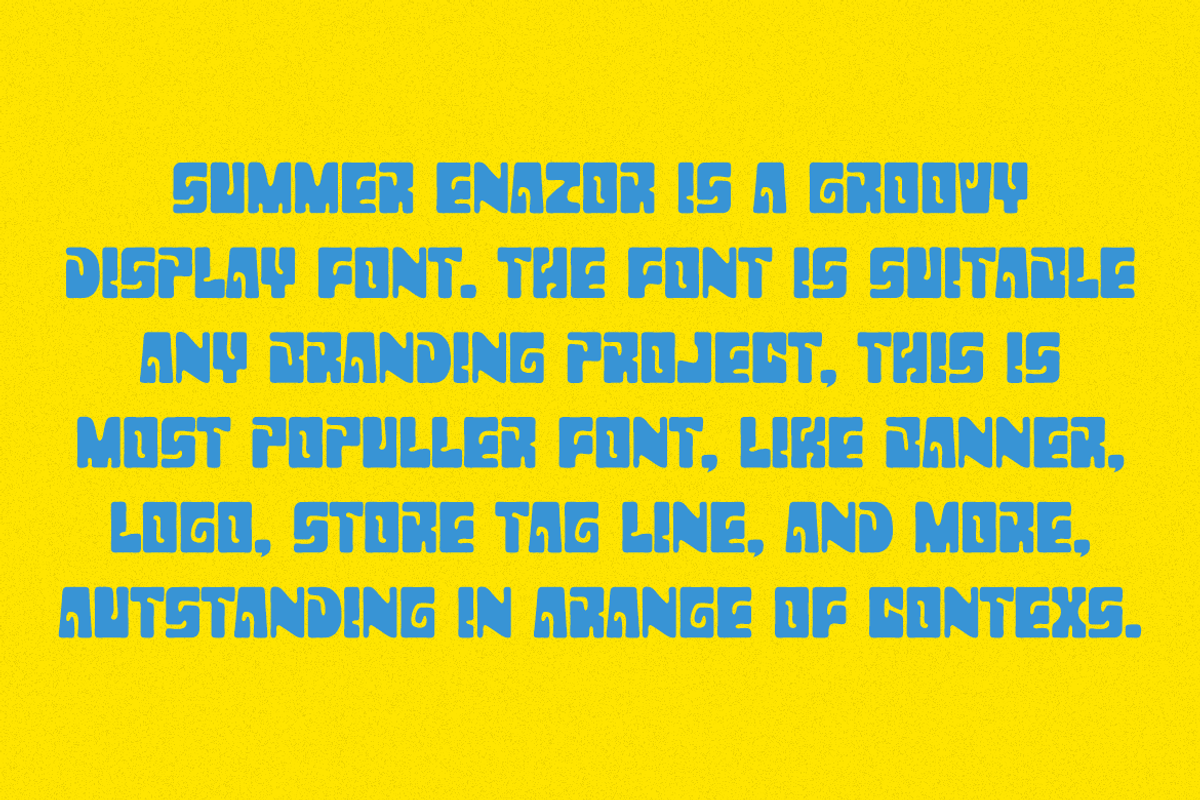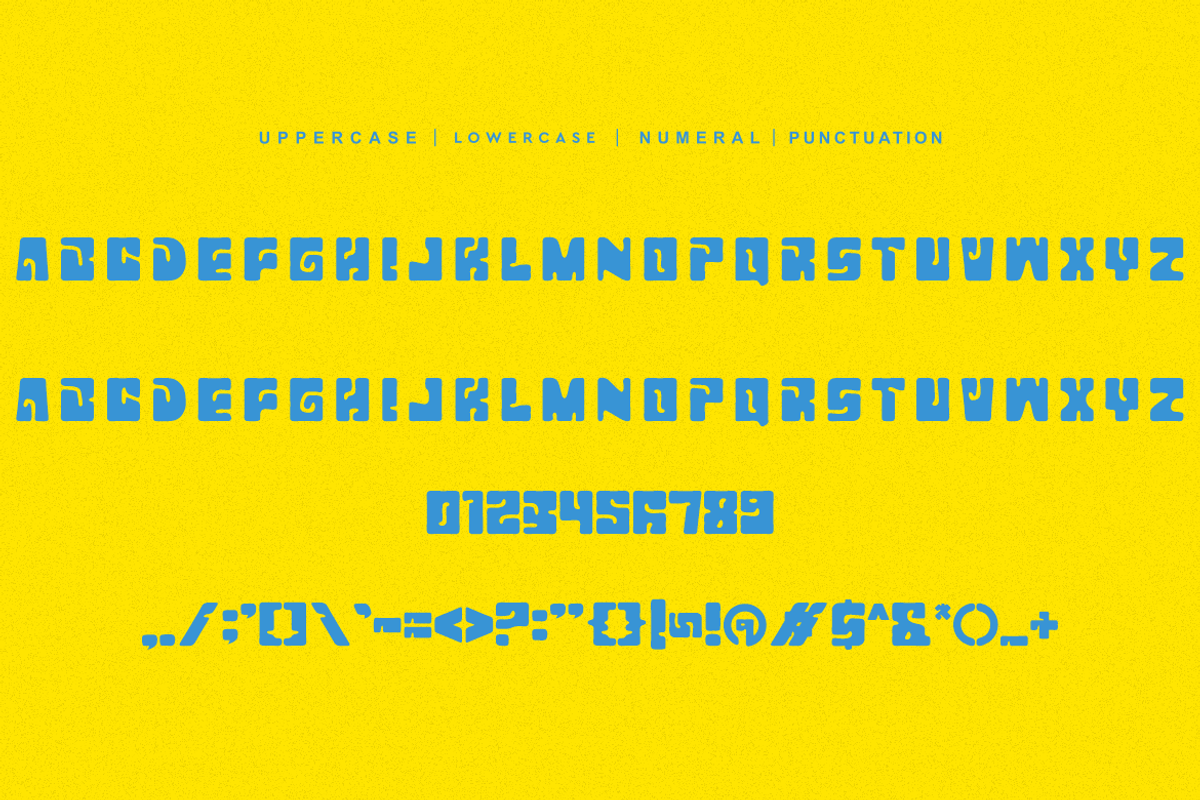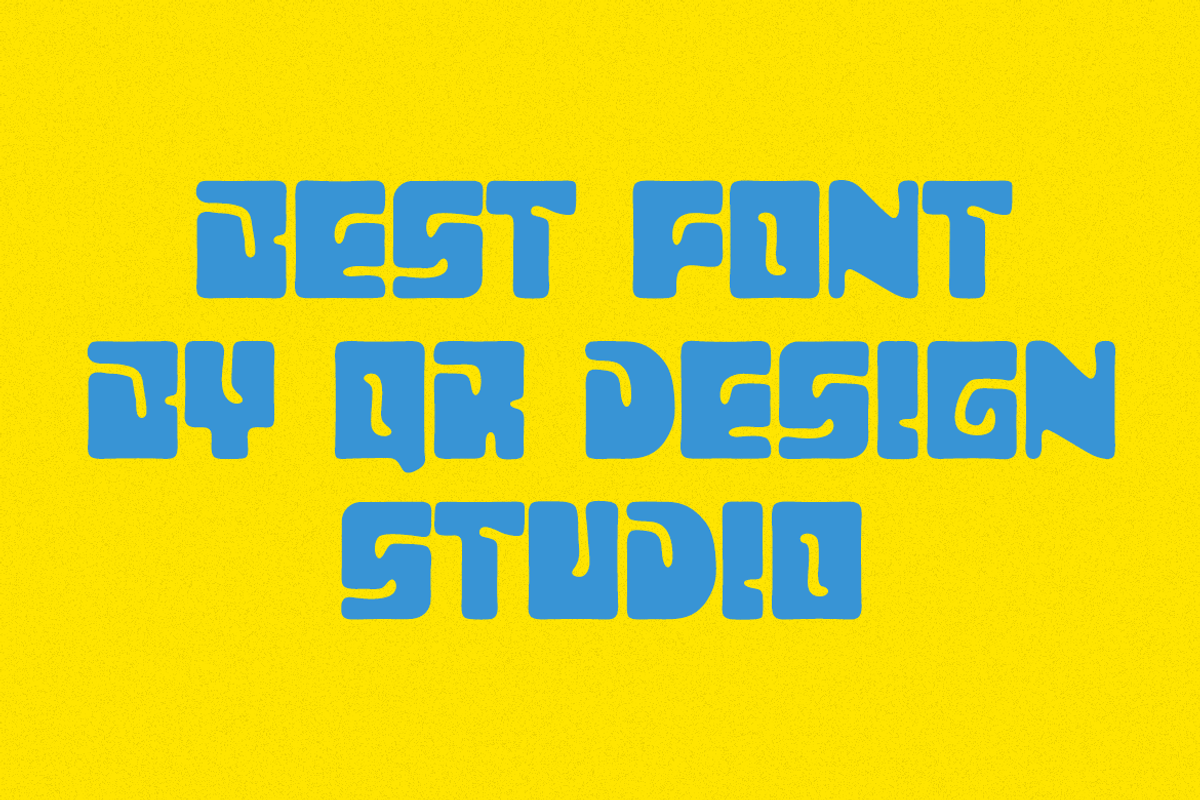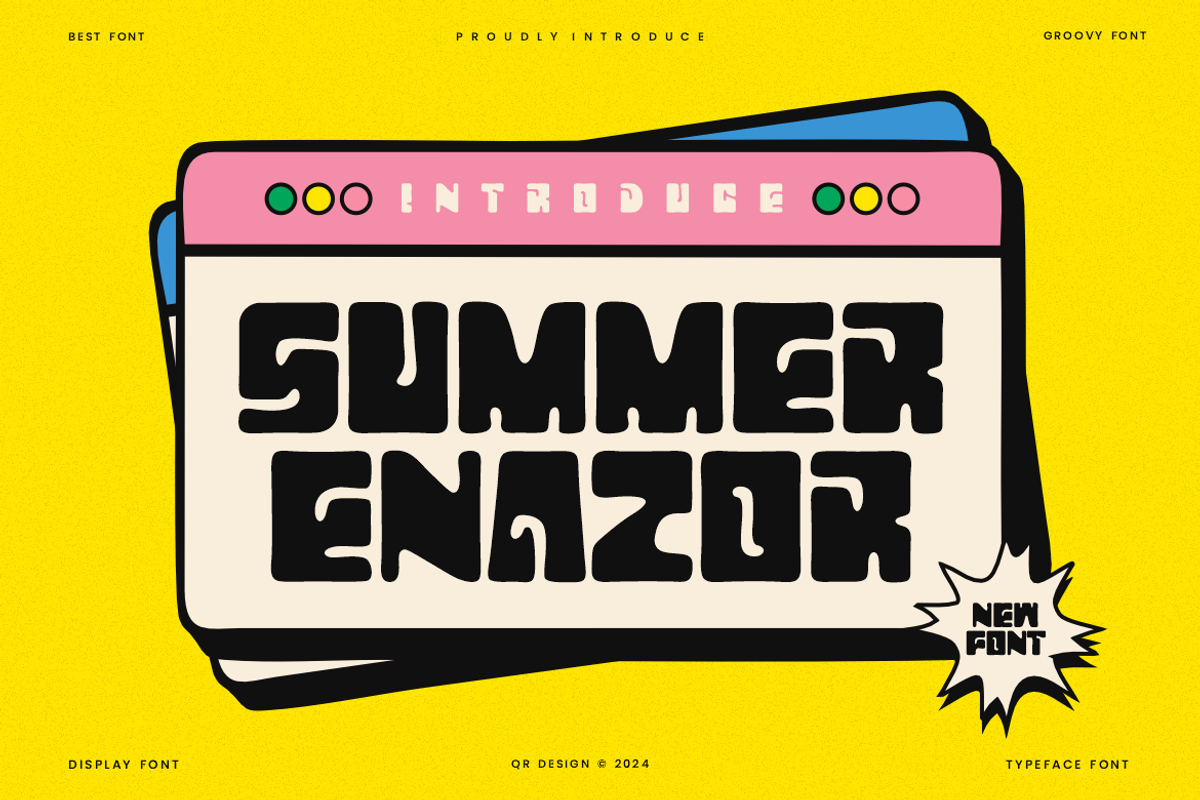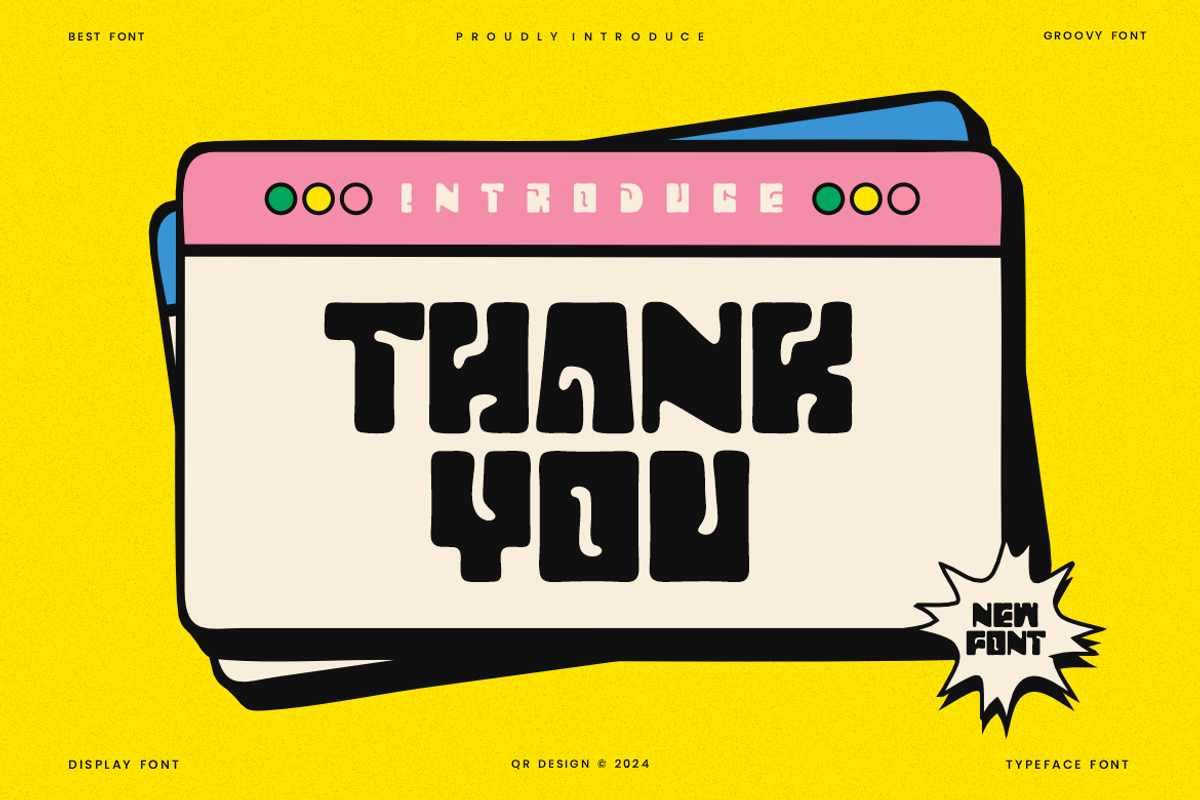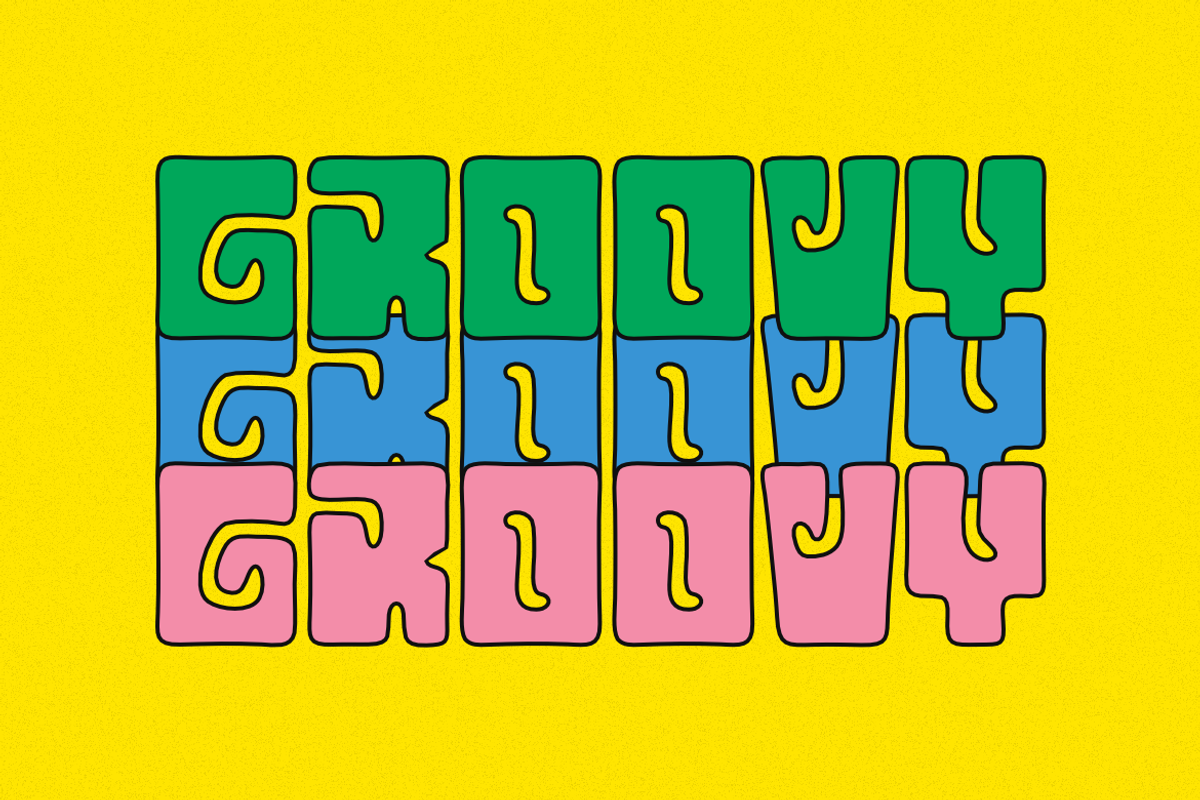
Summer Enazor - Groovy Font
Summer Enazor Font is a groovy and authentic display font. The font is suitable for any branding project like poster, logo, playful, and many more. Outstanding in a wide range of contexts.